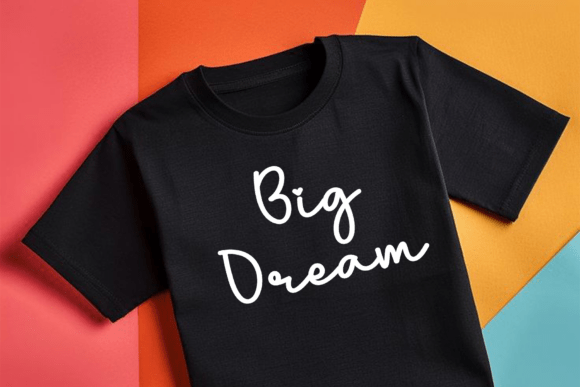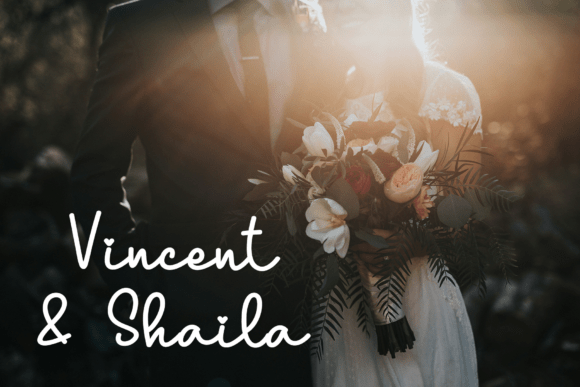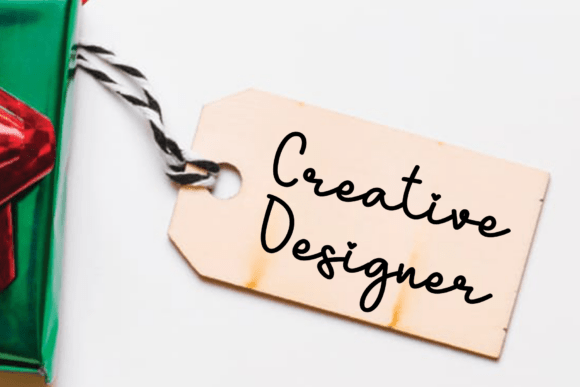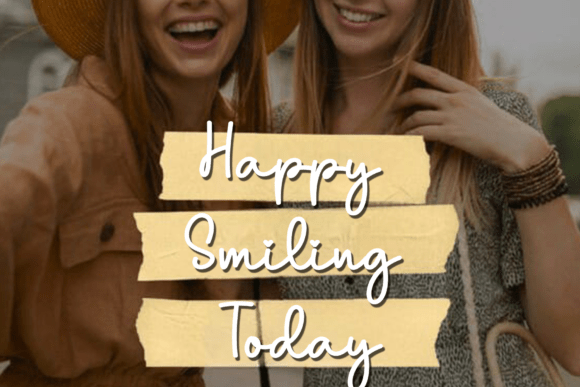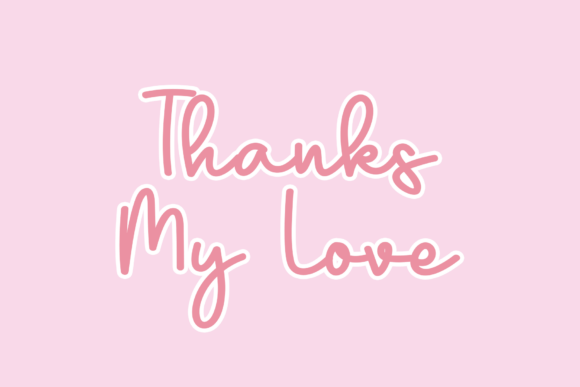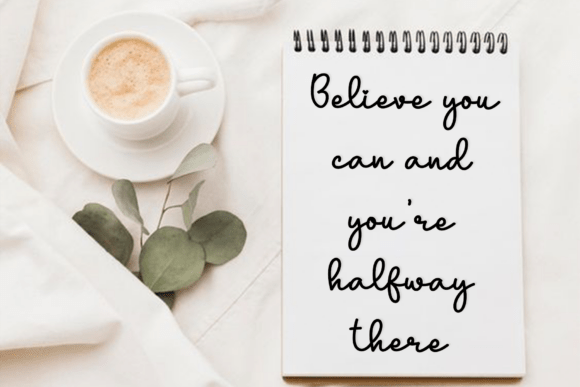
Introducing Farmhouse Valentine Font: Elevate Your Design with Elegant Script
Are you searching for a font that adds a touch of sophistication and elegance to your creative projects? Look no further than the Farmhouse Valentine Font. This beautiful, handwritten script font is designed to bring a sense of refinement and luxury to your designs, making it perfect for boutique brands, lifestyle marketing, and professional social media headers.
What Makes Farmhouse Valentine Font Stand Out?
Farmhouse Valentine Font is a sophisticated and fluid script font that features vertically elongated letterforms with a fine, monolinear stroke weight and smooth character joins. The design is characterized by tall, sweeping ascenders and rhythmic visual flourishes that mimic elegant ink work on paper, providing a sense of customized artistry and professional visual flow.
One of the standout features of Farmhouse Valentine Font is its unique blend of traditional and modern elements. The font’s classic script style is updated with a contemporary twist, making it perfect for designers and crafters who want to add a touch of elegance to their work.
Farmhouse Valentine Font is an exceptional choice for a variety of design projects, including:
- Boutique brand identities: Add a touch of luxury and sophistication to your brand’s identity with this elegant script font.
- Personal signature watermarks: Create a unique and professional-looking watermark with Farmhouse Valentine Font.
- Elegant lifestyle marketing: Use Farmhouse Valentine Font to add a touch of elegance and refinement to your marketing materials.
- Professional social media headers: Elevate your social media presence with a custom header featuring Farmhouse Valentine Font.
Why Choose Farmhouse Valentine Font?
There are many reasons why Farmhouse Valentine Font is a great choice for designers and crafters. Here are just a few:
- Unique and elegant design: Farmhouse Valentine Font features a unique and elegant design that will add a touch of sophistication to your work.
- High-quality and versatile: This font is high-quality and versatile, making it perfect for a variety of design projects.
- Easy to read: Despite its elegant design, Farmhouse Valentine Font is easy to read, making it perfect for body text and headlines.
- Customizable: With Farmhouse Valentine Font, you can create a custom look that fits your brand’s identity.
Tips for Using Farmhouse Valentine Font
Here are a few tips for using Farmhouse Valentine Font in your design projects:
- Use it as a headline font: Farmhouse Valentine Font is perfect for headlines and titles, where its elegant design can really shine.
- Pair it with a sans-serif font: For body text, pair Farmhouse Valentine Font with a clean sans-serif font to create a beautiful contrast.
- Experiment with different colors: Farmhouse Valentine Font looks great in a variety of colors, from classic black and white to bold and bright hues.
- Use it for branding: Use Farmhouse Valentine Font to create a custom logo or brand identity that will help your business stand out.
Farmhouse Valentine Font is a beautiful and elegant script font that is perfect for designers and crafters who want to add a touch of sophistication to their work. With its unique blend of traditional and modern elements, this font is sure to elevate your design projects and help your brand stand out. Whether you’re looking to create a custom brand identity, elegant marketing materials, or professional social media headers, Farmhouse Valentine Font is an exceptional choice.